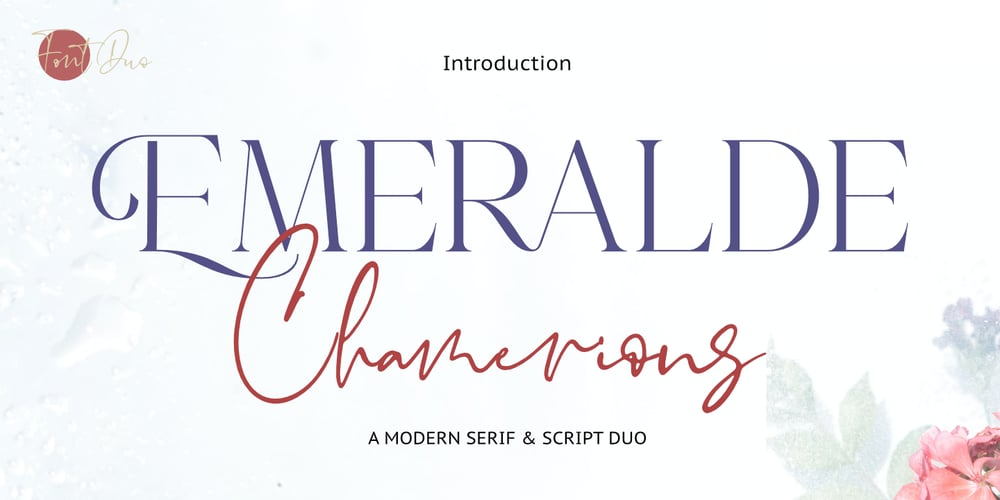
Emeralde Chamerions Font Family was designed by Abdul Malik Wisnu and published by Almarkha Type. Emeralde Chamerions contains 2 styles and family package options. Introducing Emeralde Chamerions – Stylish Font Duo , Display Serif And Signature Stylish Script inspired by famous logo perfect for the purposes of designing templates, brochures, videos, advertising branding, logos and more.